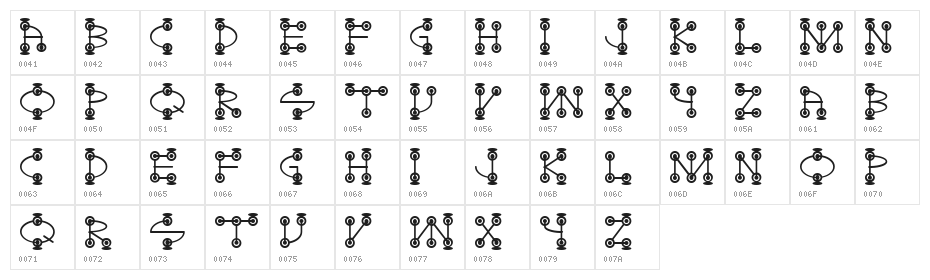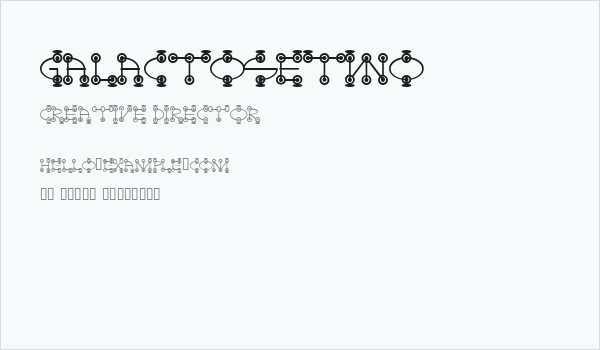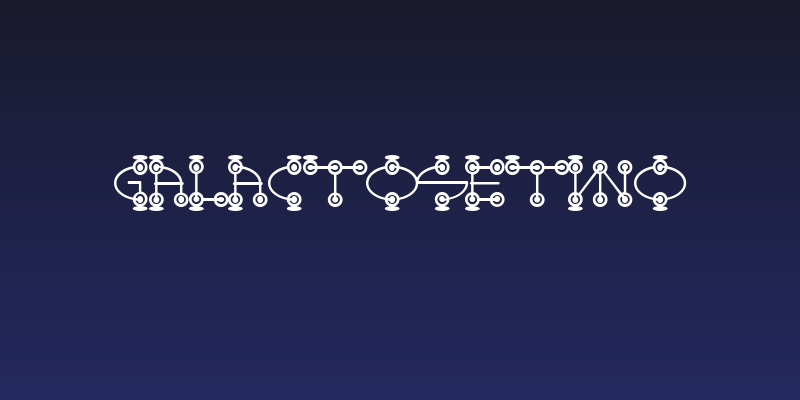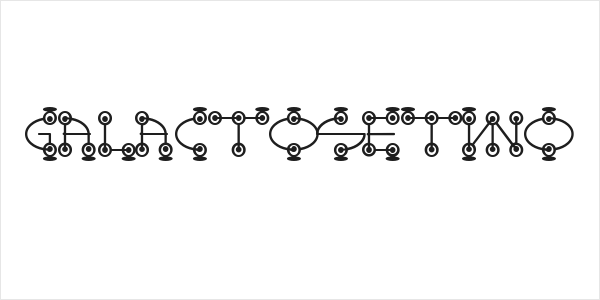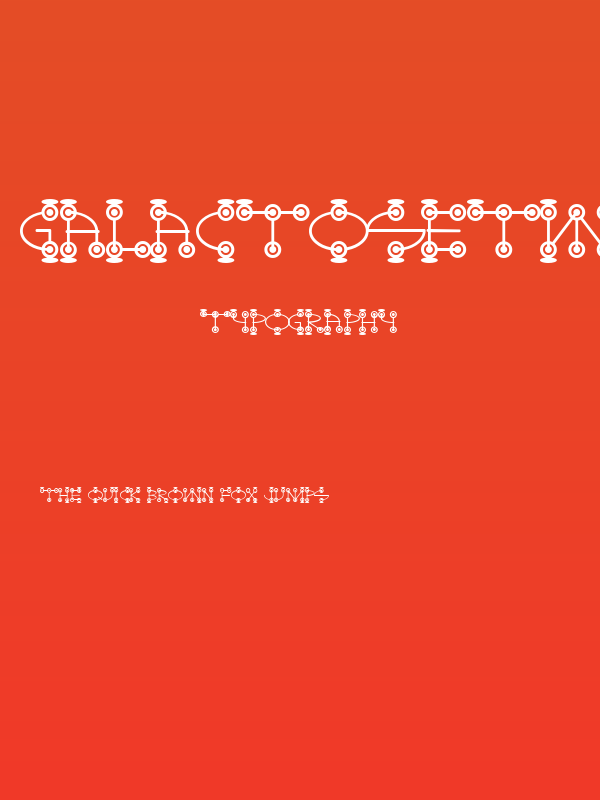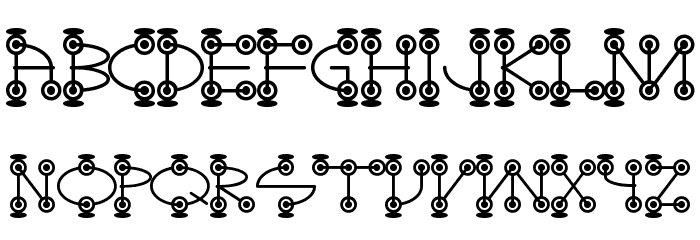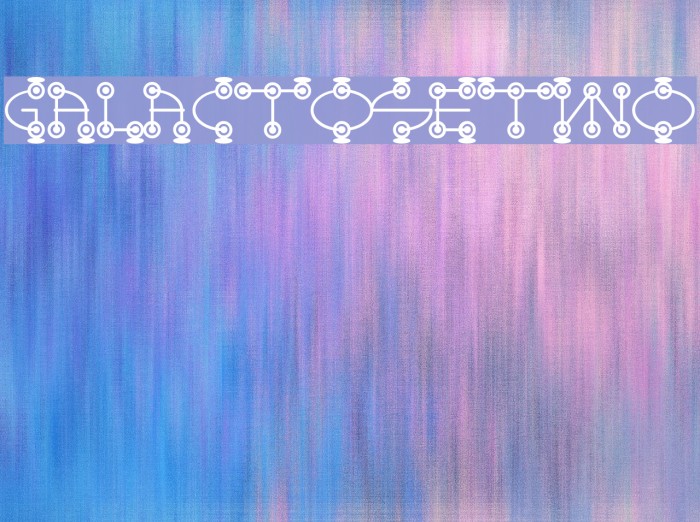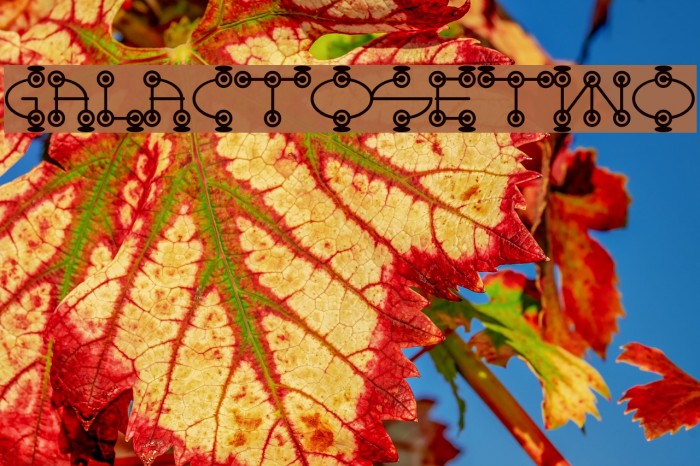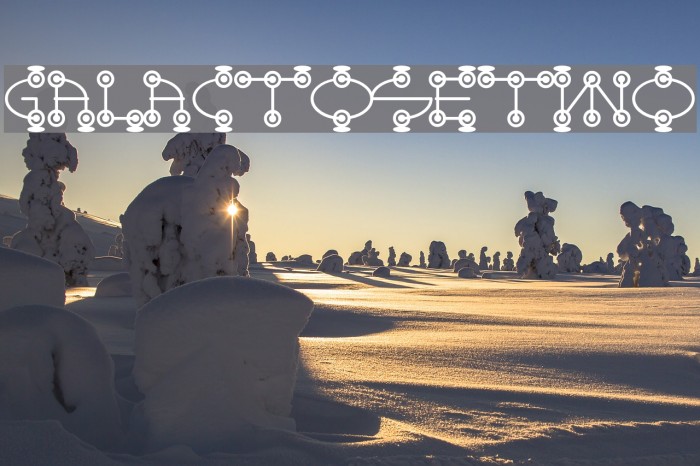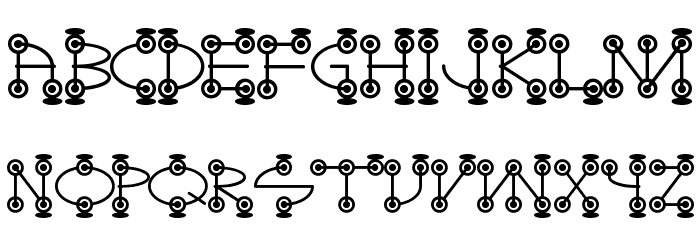
GalactoseTWO Font
GalactoseTWO Description
This font features a highly decorative and futuristic design, characterized by interconnected circular elements and lines that form each letter and number. The style is reminiscent of circuit patterns or molecular structures, giving it a unique and modern appearance. Each character is composed of bold, black strokes with consistent circular motifs at the ends, creating a sense of unity and flow across the typeface. The font maintains a consistent height and width for each character, ensuring readability despite its intricate design. The special characters are integrated seamlessly, maintaining the same visual theme as the alphanumeric characters.
| Overall Style | Futuristic, Decorative |
| Use Case | Logos, Posters, Headlines |
| Proposed Projects | Ideal for sci-fi themed projects, technology branding, futuristic posters, or video game graphics. |